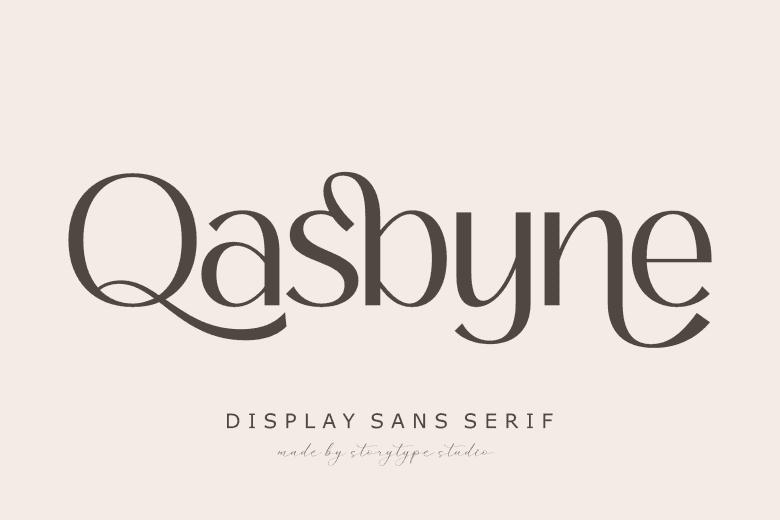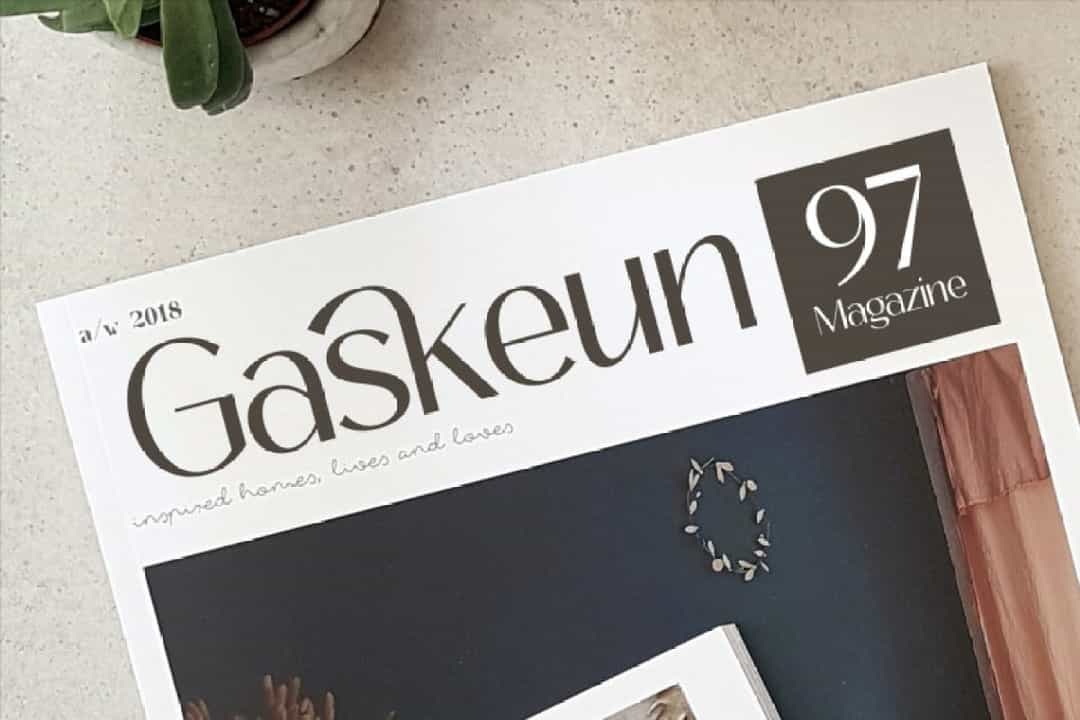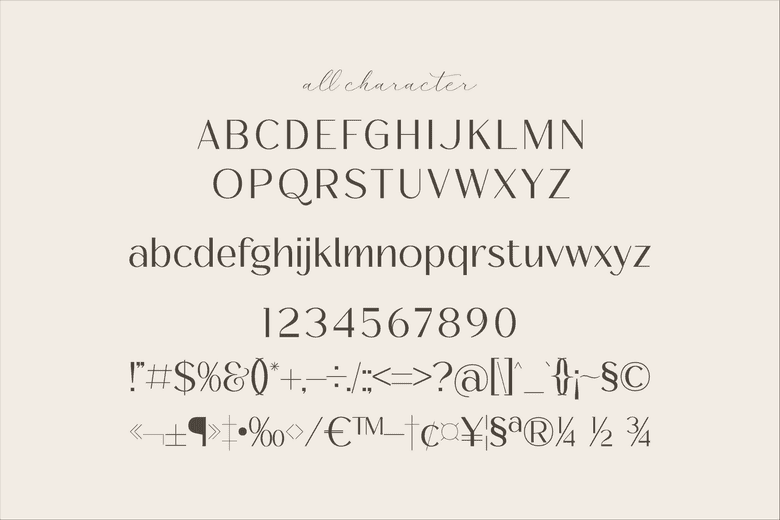
Qasbyne is an elegant and modern display sans serif font with its distinctive style and modern appearance. Perfect for creating stylish logos, book or film name designs, clothing brand names, magazine letters and quotes and much more – Qasbyne is perfect!